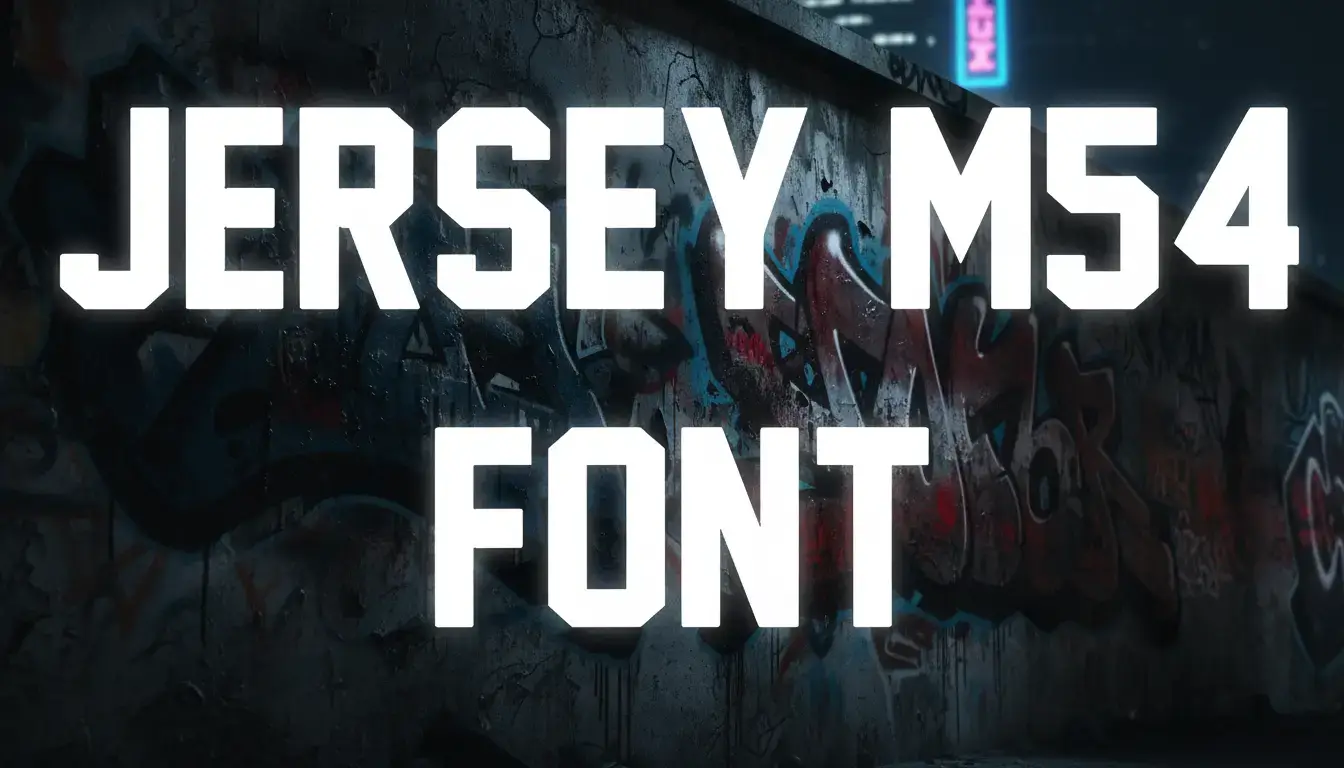
Jersey M54 Font
Jersey M54 is a fancy font created by Mohammed Rahman and released through M54 (justme54s). Bold and full of character, it's built to stand out rather than blend in. You can download it for free and test it with your own words in the preview above.
What You Can Type With Jersey M54
With complete upper and lowercase letters and all ten digits, Jersey M54 is ready for real wording, not just a single headline. Common punctuation such as &, !, ? and @ is included as well. It doesn't include accented letters such as é or ñ, which makes it an English-only font.
Where Jersey M54 Works Best
Think of Jersey M54 for posters, logos and eye-catching headlines. Use it for one standout word or headline and let simpler fonts handle the rest.